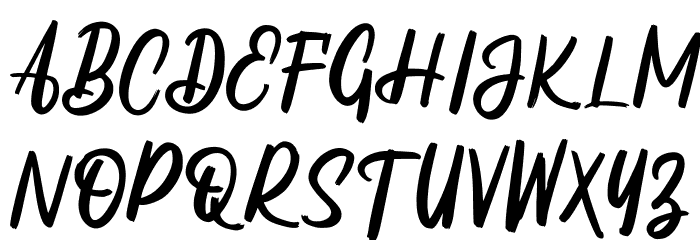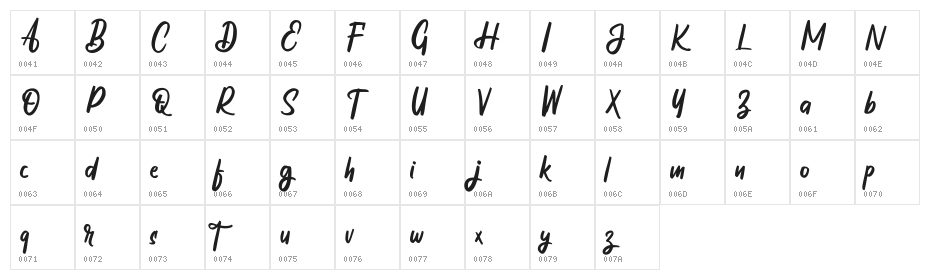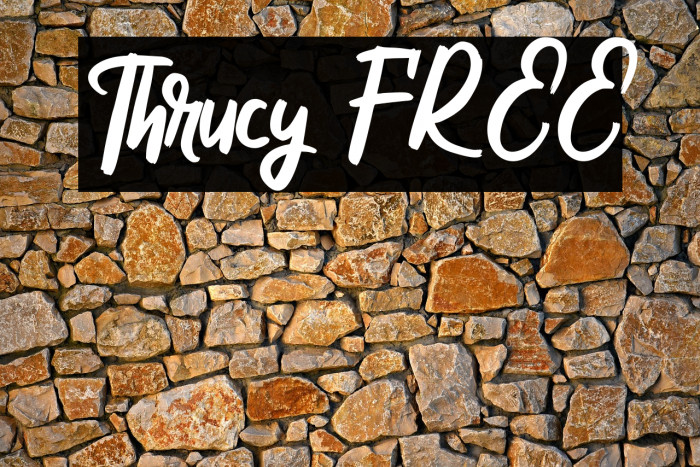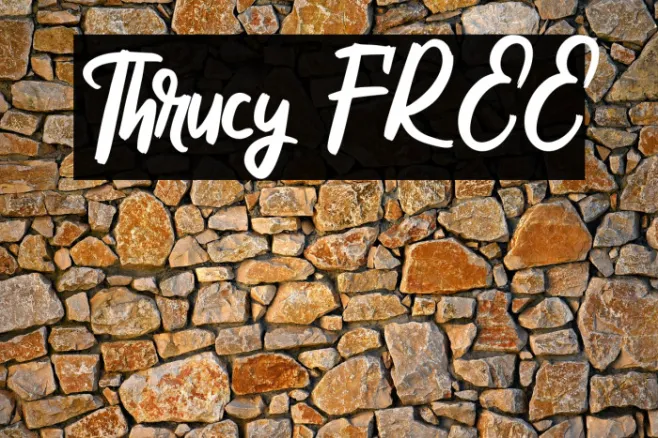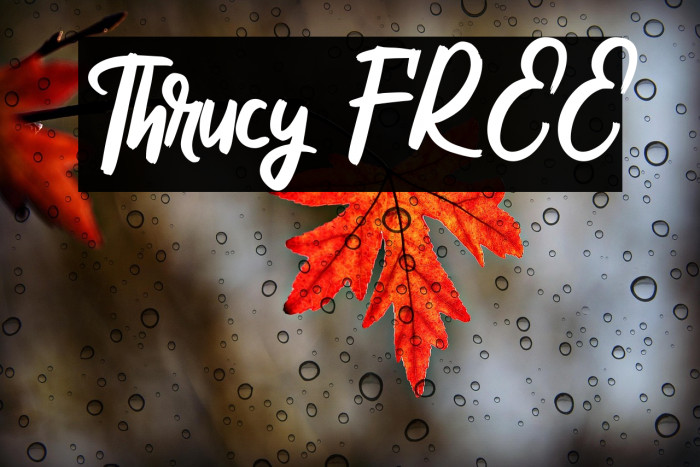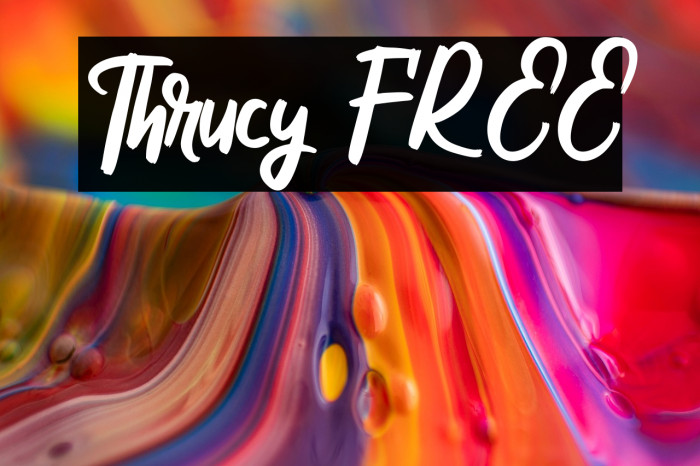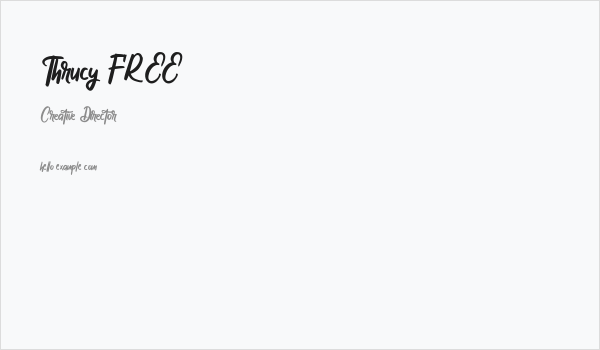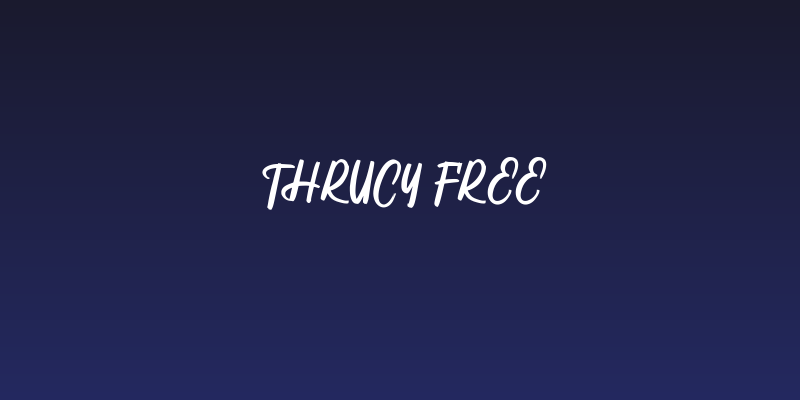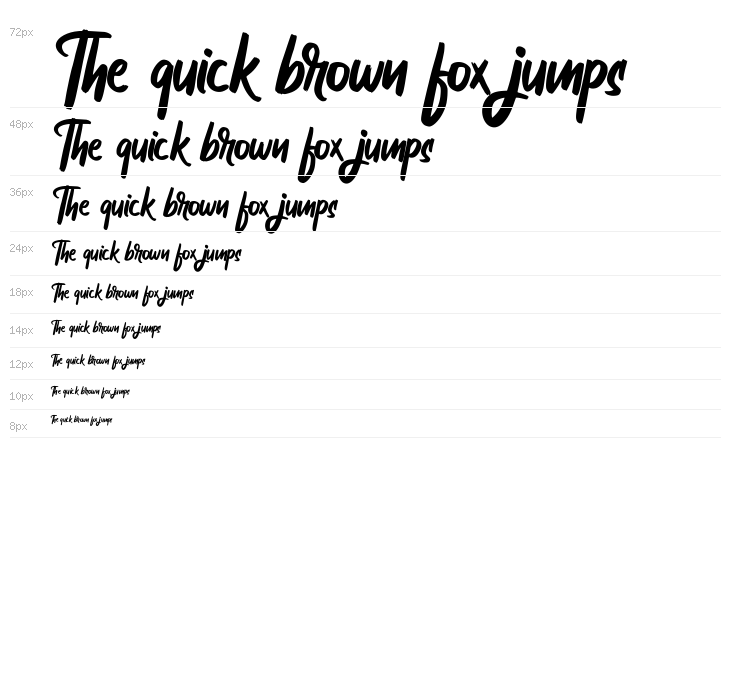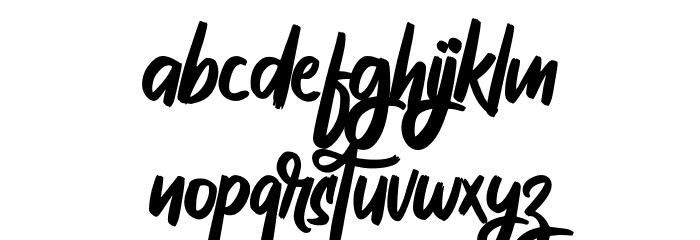
Thrucy FREE Font
Thrucy FREE Description
This font features a bold and expressive handwritten style, characterized by its fluid and dynamic strokes. The uppercase letters are tall and slightly slanted, giving a sense of movement and energy. The lowercase letters maintain a consistent flow, with some characters featuring unique loops and curves that add personality. The font includes a full set of uppercase and lowercase letters, numbers, and a selection of special characters. Its playful yet elegant appearance makes it suitable for a variety of creative projects.
| Proposed Projects | Ideal for branding, invitations, posters, and social media graphics. |